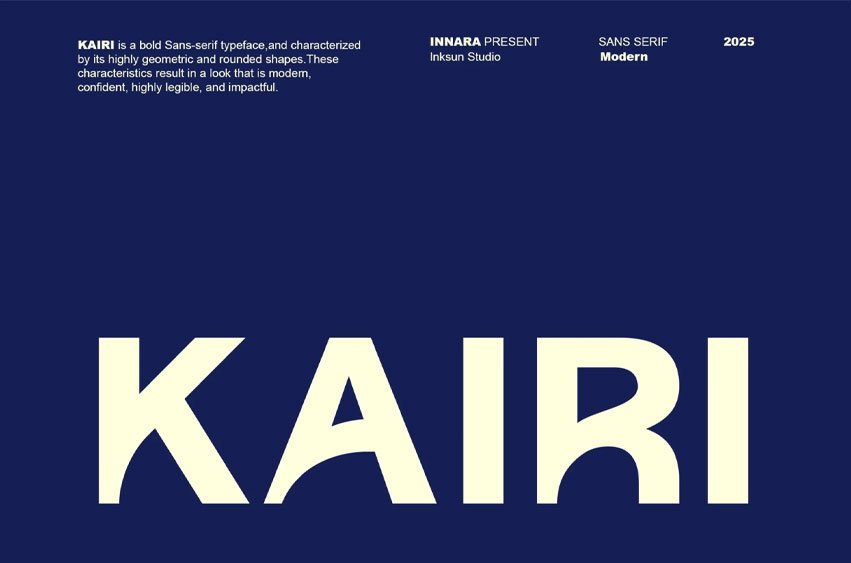
Kairi Font Sans Serif Style: This font does not have small lines (serifs) at the ends of its characters, giving it a clean and minimalist look,
Geometric and Rounded: The letterforms are based on geometric shapes with rounded or curved corners, which give a friendly yet professional impression.
Bold Weight: The version shown has a dominant thickness (bold), resulting in a bold, confident, and impactful appearance.
High Readability: The design is designed to be highly legible, both for large text and other visual elements.